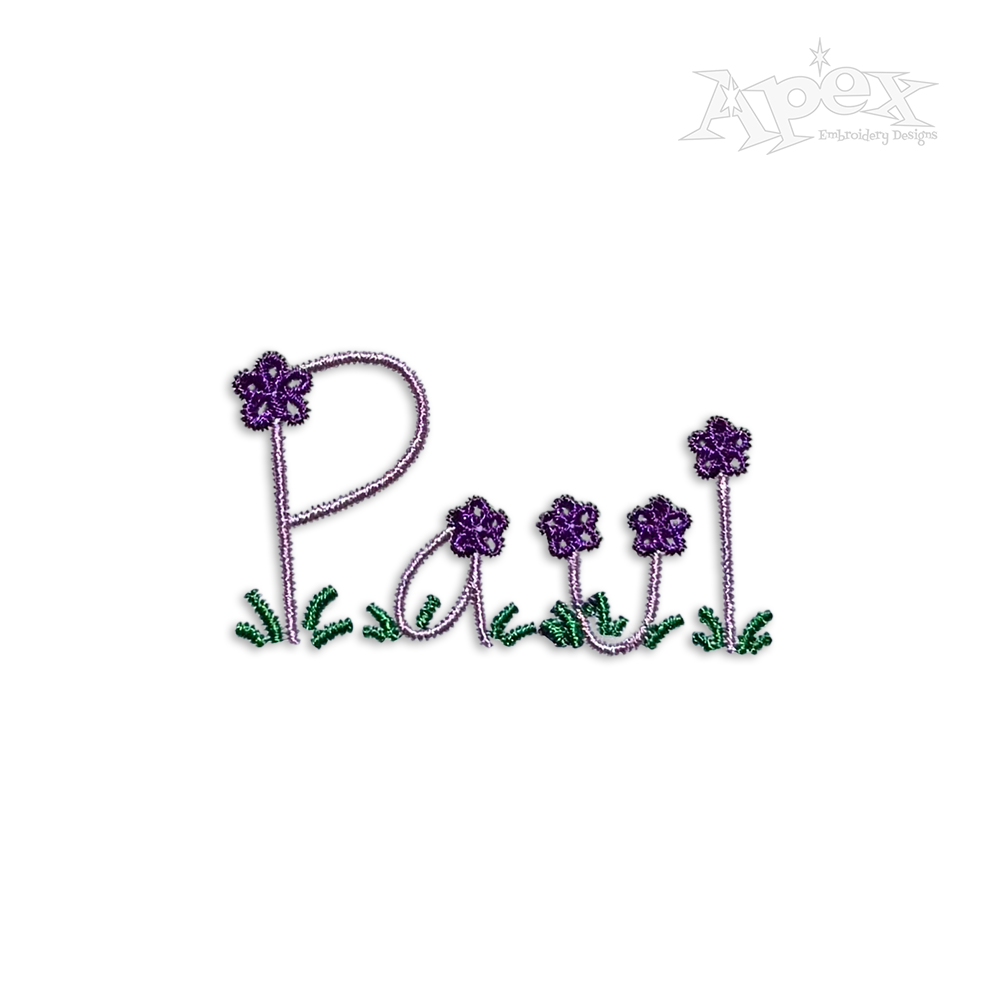
Daisy with Grass Embroidery Font
Inspired by sun-drenched pastoral meadows, the Daisy with Grass Embroidery Font captures the innocent, effortless beauty of springtime in every stitch. When drafting this alphabet at the digitizing easel, our artisan goal was to harmonize crisp, readable monogram architecture with organic botanical elements. Delicate daisy blossoms unfurl alongside textured blades of grass that ground each character, infusing custom monogramming and personalized gifting projects with nostalgic charm and fresh garden energy.
Project Ideas for Daisy with Grass Font
- Heirloom Children's Apparel: Stitch sweet spring monograms onto vintage-style baby rompers, smocked bodices, birthday pinafores, and knit cardigans.
- Garden Party Table Linens: Elevate luxury table linens, hemstitched runners, and botanical tea napkins for outdoor bridal luncheons or Easter gatherings.
- Bespoke Nursery Décor: Personalize floral crib quilts, birth announcement pillows, and delicate canvas wall banners for a charming cottagecore aesthetic.
- Personalized Spring Accessories: Monogram straw market bags, canvas gardening aprons, sun hats, and weekend totes for unique, bespoke gifts.
- Diagonal Corner Placements: The grounded grass base makes this font naturally well-suited for the lower corner of linen cocktail napkins, tea towels, and handkerchiefs.
- Centered Bodice or Yoke: Use the uppercase letters as standalone initial monograms on children's dresses, baby bibs, or rompers where the flower creates a captivating focal point.
- Pillow & Blanket Borders: Align full names or sweet spring words along the bottom hem of throw pillows or baby blankets, letting the grassy tufts mimic a blooming garden border.
- Tote & Apron Pockets: Center an initial or monogram across an exterior slip pocket to showcase the delightful botanical details.
Daisy with Grass Font Craft & Letterform Details
Digitizing botanical typography requires a delicate balance between structural integrity and playful organic movement. The underlying alphabet is rendered in classic, luminous satin stitch columns, meticulously angle-mapped so the thread catches light along every turn of the stroke. Rooted at the base of each letter, the grass elements feature layered, varied-density satin stitches that produce tactile depth without creating stiff, overly dense thread buildup.
Perched organically along the stems and flourishes, the daisy petals are plotted with balanced stitch directions that radiate inward toward a plush, dimensional center. Calibrated push-and-pull compensation guarantees that the delicate petals and crisp letter contours align with effortless precision on fine cotton, airy linen, and soft knits, resulting in an heirloom embroidery finish you will be proud to stitch time and time again.